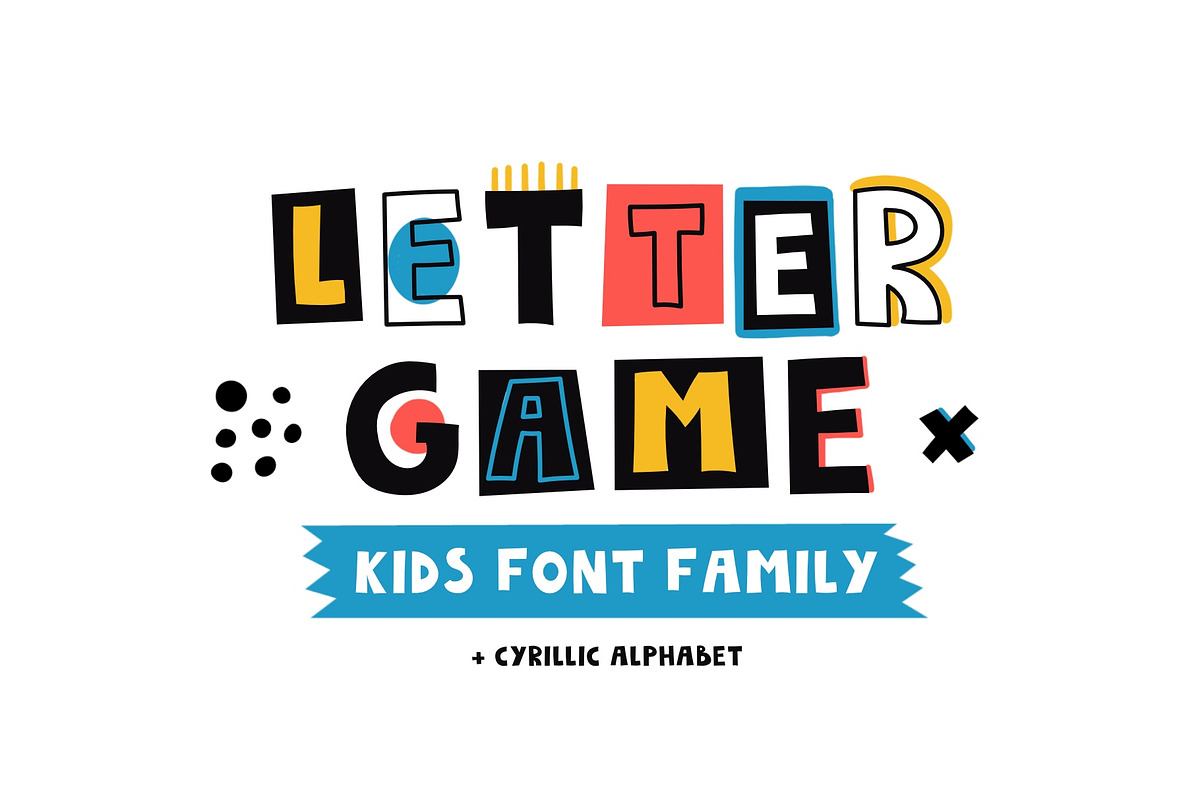
Bring fun and creativity to your designs with LetterGame - Kids Font Family Free Download. This playful font family includes multiple styles, each designed with young audiences in mind. Perfect for children’s books, educational materials, posters, branding, and any project that requires a joyful, engaging touch.
LetterGame features bold, friendly letterforms that are easy to read while adding an element of fun and whimsy. The family includes various weights and styles, uppercase and lowercase letters, numerals, punctuation, and multilingual support, allowing you to experiment with a wide range of design concepts.